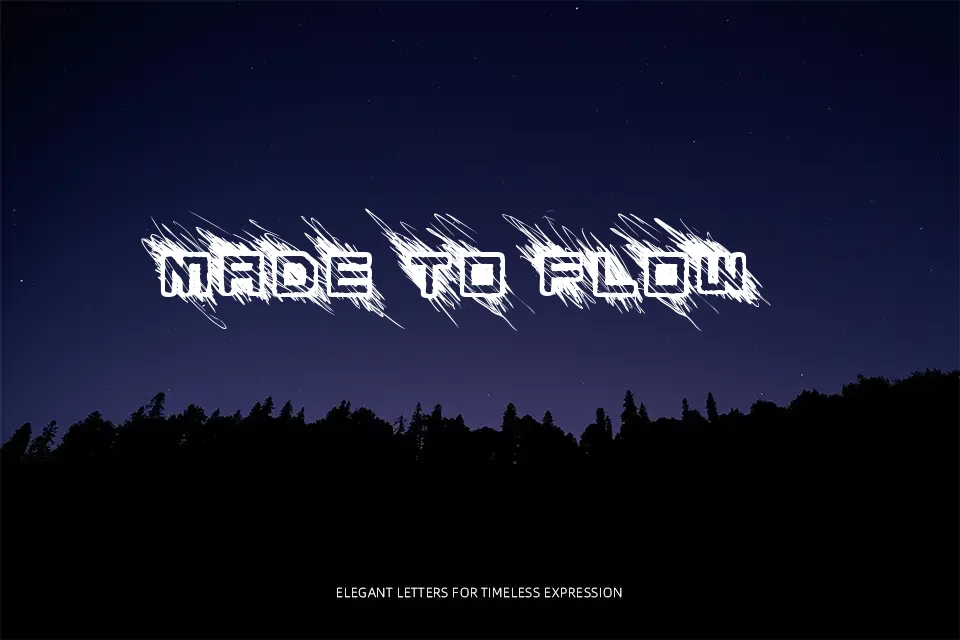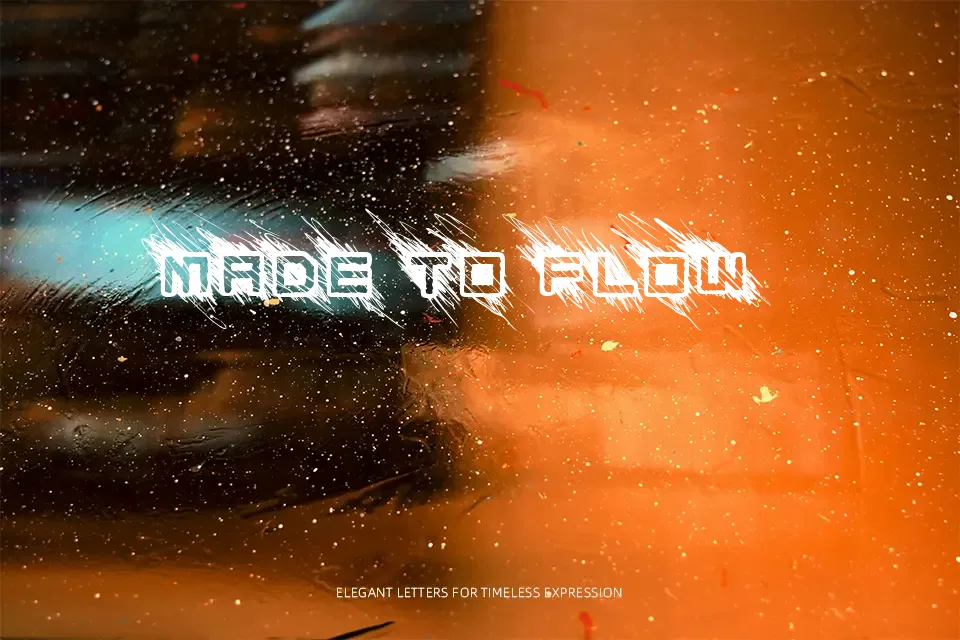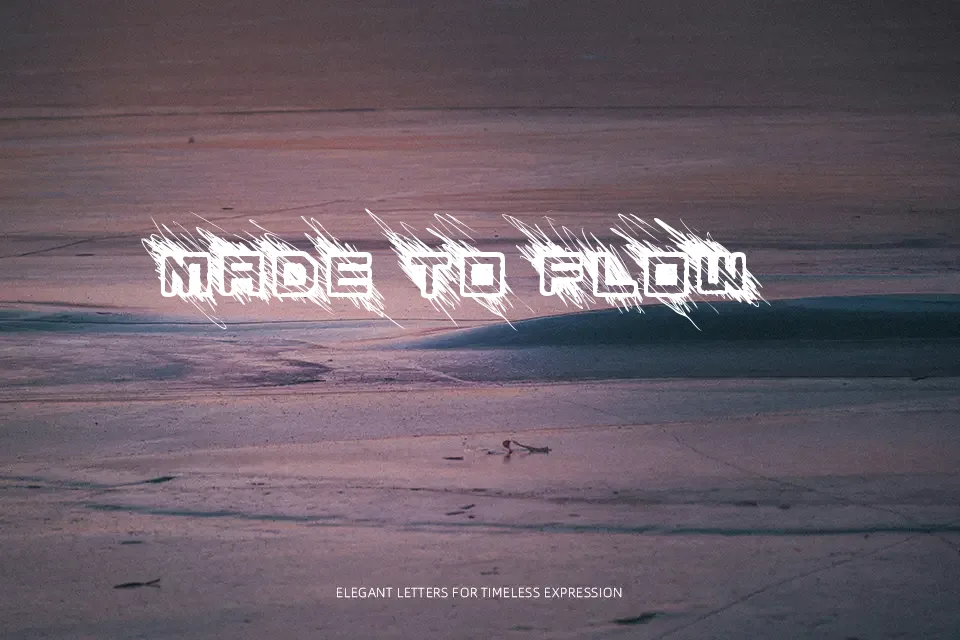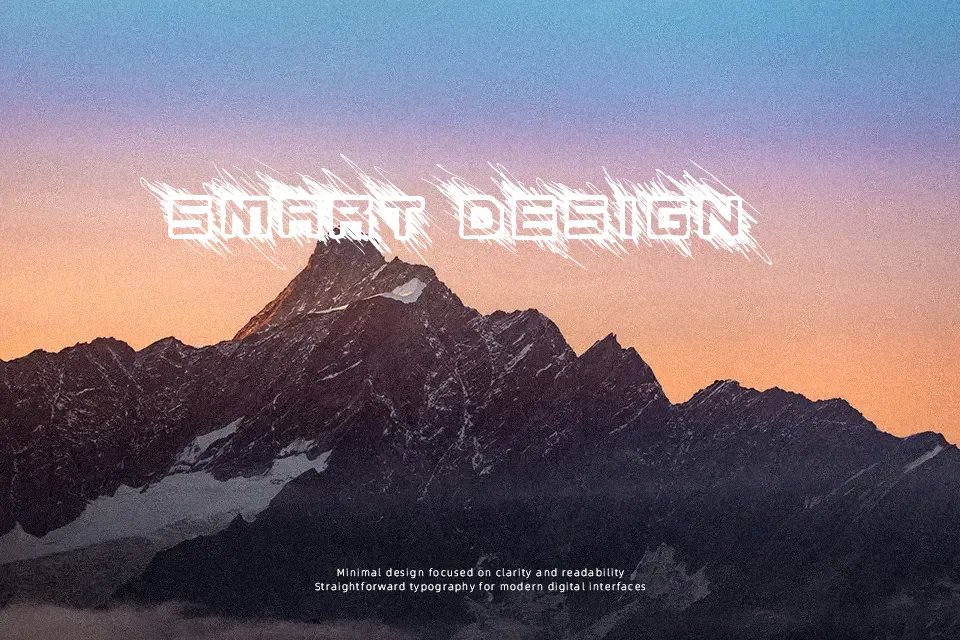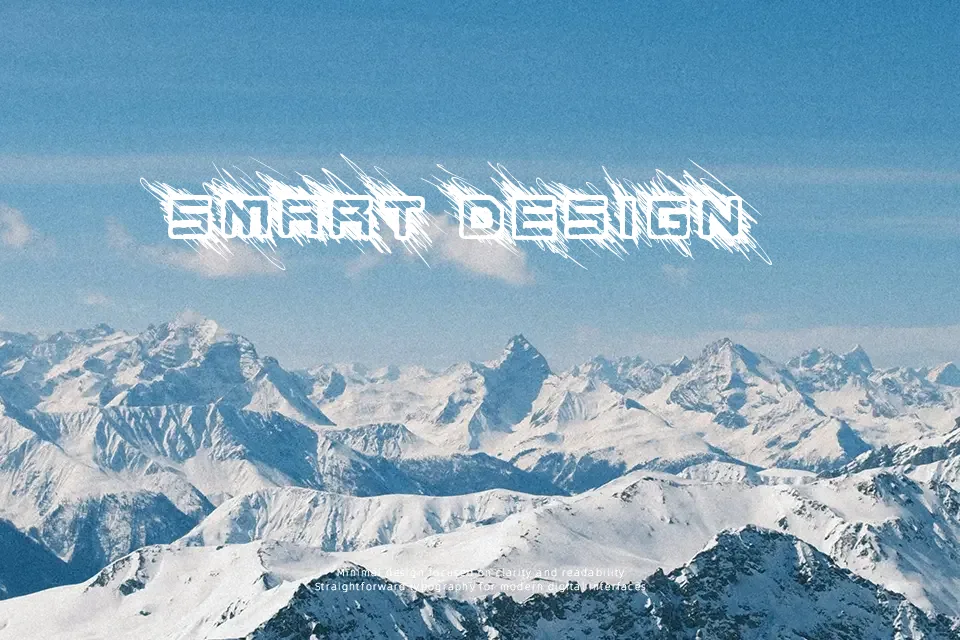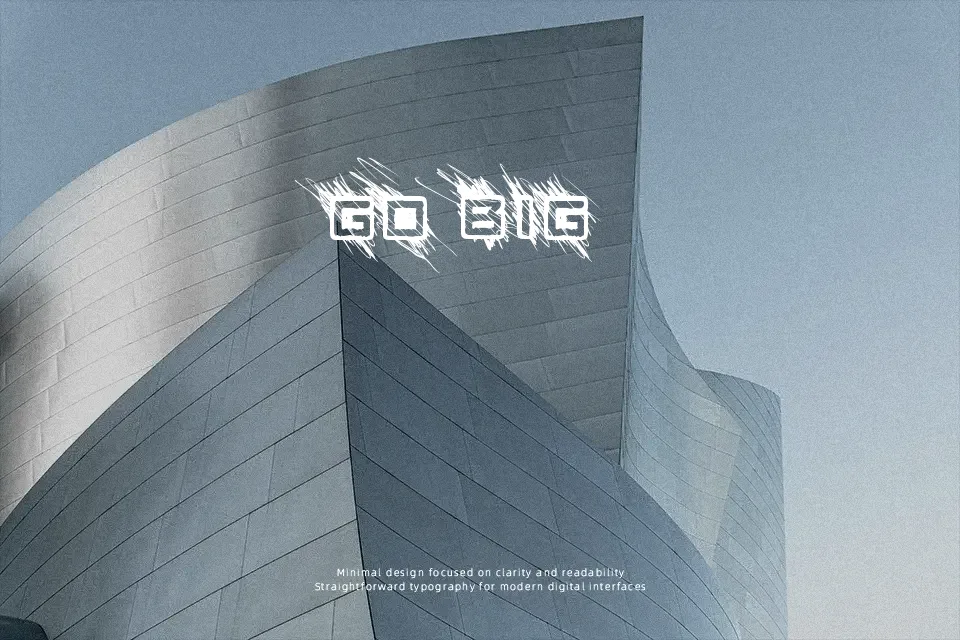
Bad Behaviour Font
There’s a deliberate roughness to Bad Behaviour — letterforms look like they’ve been scratched into a surface, with uneven edges, irregular stroke breaks, and visible erosion across the body. It sits in grunge-display territory, leaning hard into texture over elegance. That quality makes it a solid pick for horror movie title cards, metal band merchandise, Halloween event flyers, and any visual that needs a sense of damage or decay. Where it falls short is in readability at small sizes — the worn strokes lose definition quickly, making it unsuitable for body copy or anything set below roughly 24pt. Use it for single-word impact or short headlines, not running text. One weight, no italics, limited punctuation variety — those constraints matter when layout flexibility is needed.
Best For:- Horror or Halloween event poster titles
– Punk and metal band logo lockups
– Underground zine or grunge editorial headers
– Dark-themed social media graphics
Not Ideal For:- Body text or paragraphs at any size
– Corporate branding or professional reports
– UI labels or navigation elements
– Projects requiring clean, high-legibility type
Perfect for advertising, halloween, and logo, with a bold and decorative style.